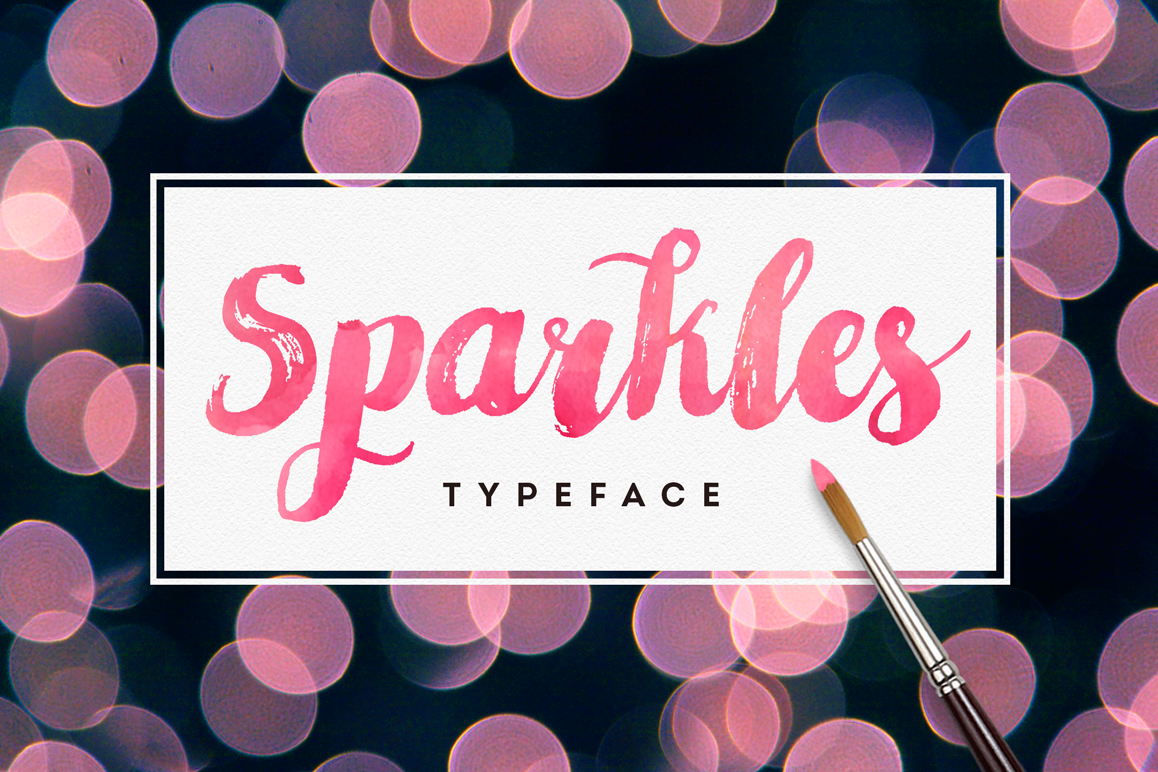
Sparkles Font
For those who wanted the Sparkles Font without the Metallic Textures, here it is!
Introducing Sparkles - a hand-painted typeface designed to help you create that look of truly hand-drawn and also shiny touch to any of your typographic projects. Sparkles typeface (Regular+ Italic) comes with upper and lowercase characters, large set of punctuation glyphs and numerals.